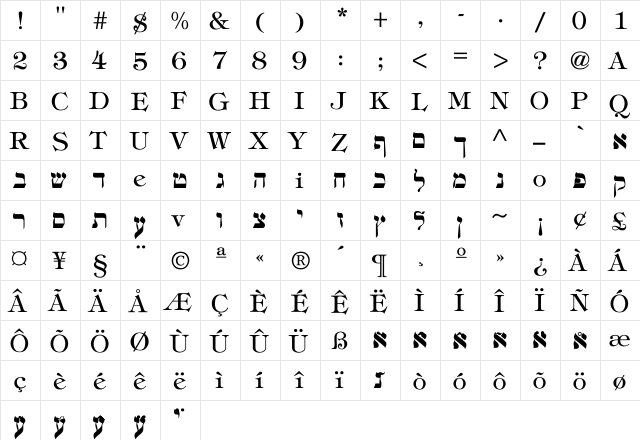
hebrew Regular Font Preview
hebrew Regular
Design Context for hebrew Typeface
hebrew takes a measured approach to typography — its balanced proportions and neutral character make it a reliable workhorse for both digital and print work.